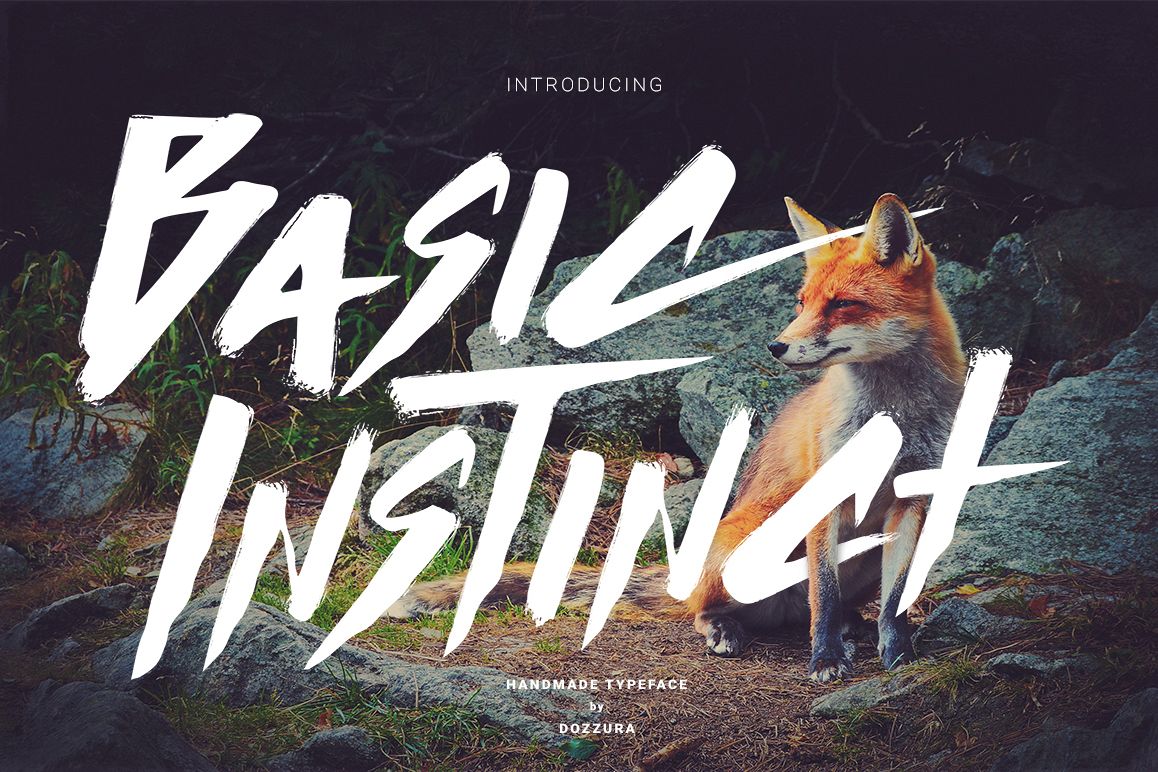
Basic Instinct Typeface
BasicInstinct.
Basic Instinct Typeface is a handmade typeface built for strong, rough, messy, grunge, street art, and many other designs. This type face is suitable for Logos, posters, clothings, and many other ideas that is handmade designs.